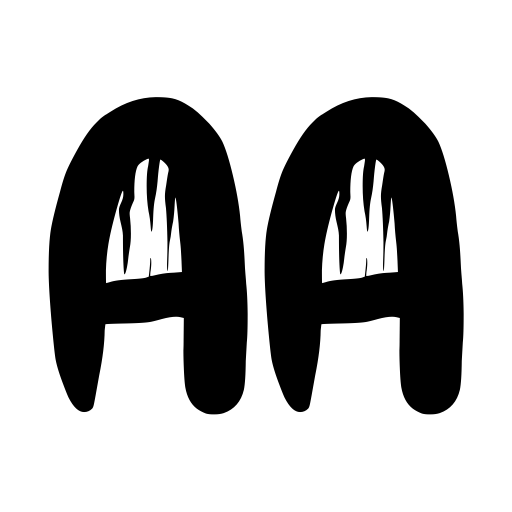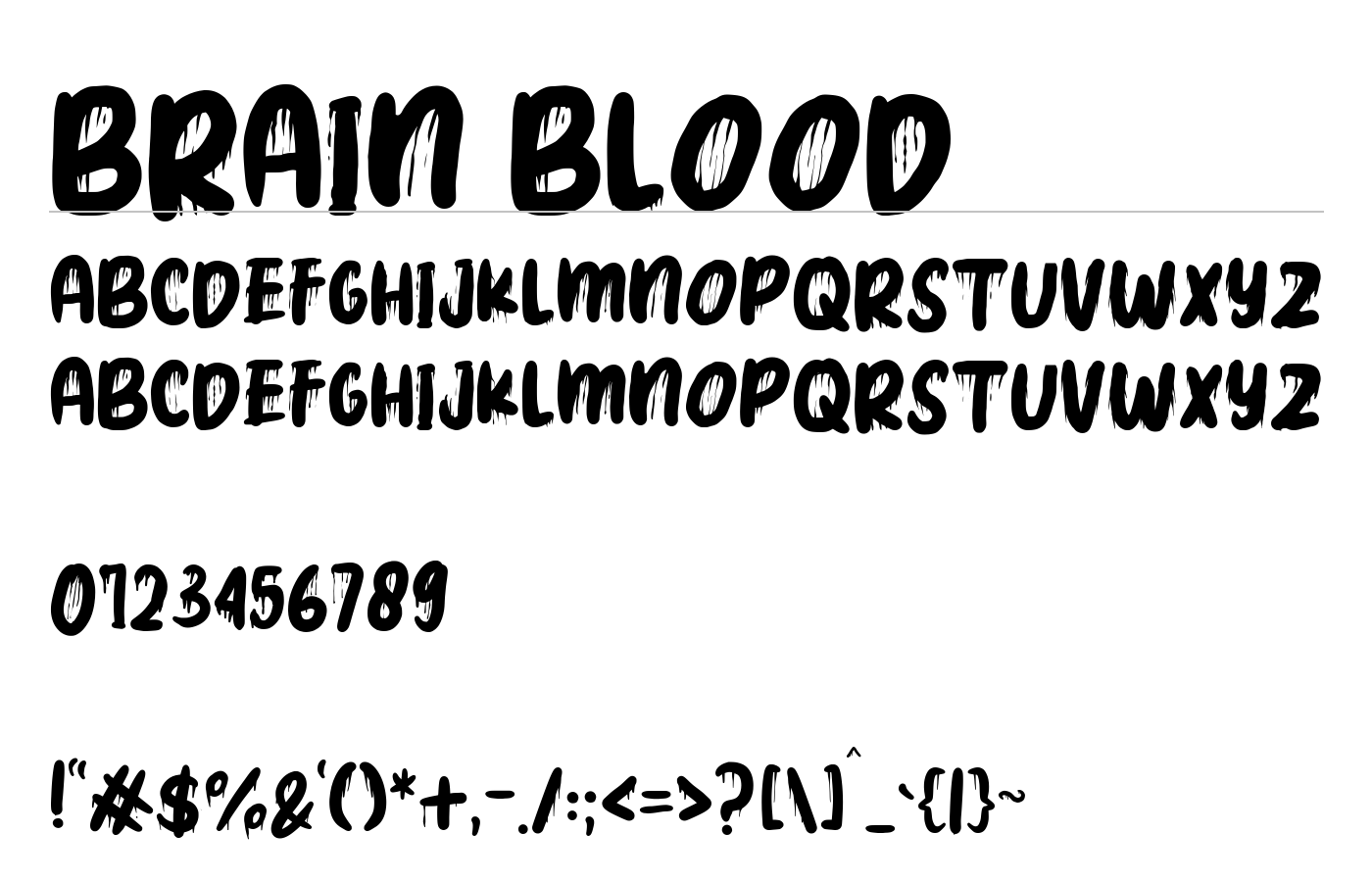
Brain Blood is a bold, playful sans serif font with a hand-drawn, textured style that feels energetic and informal. Its thick, irregular strokes and quirky character shapes give it a fun, slightly edgy personality, making it ideal for creative projects, horror or thriller themes, posters, and eye-catching headlines. This font works well where a casual, dynamic look is needed to grab attention and convey a strong, expressive mood.
Brain Blood Font
About Brain Blood Font
| Font family | Brain Blood Font |
| Designer | Nomlimofont |